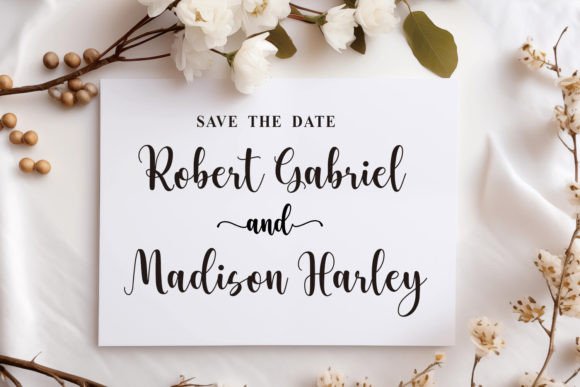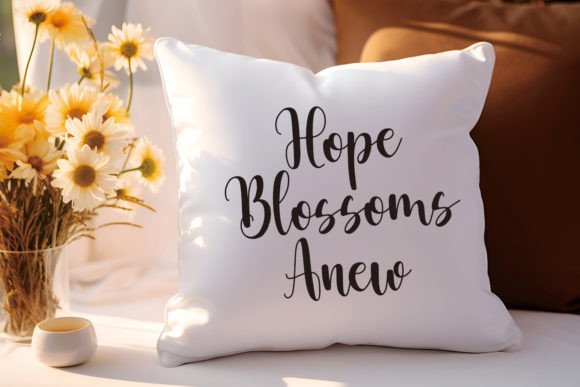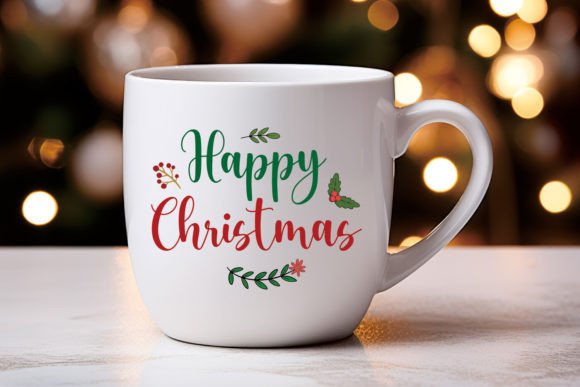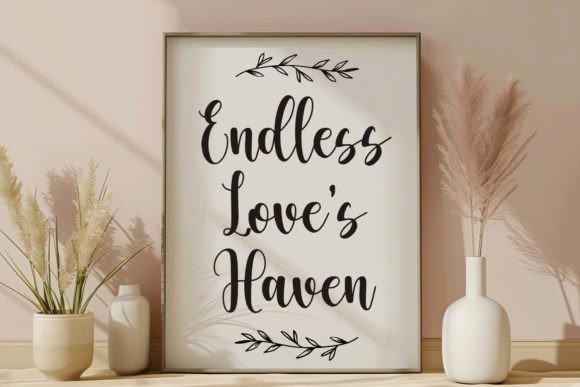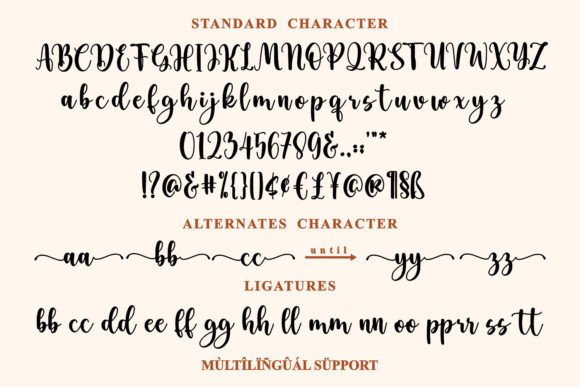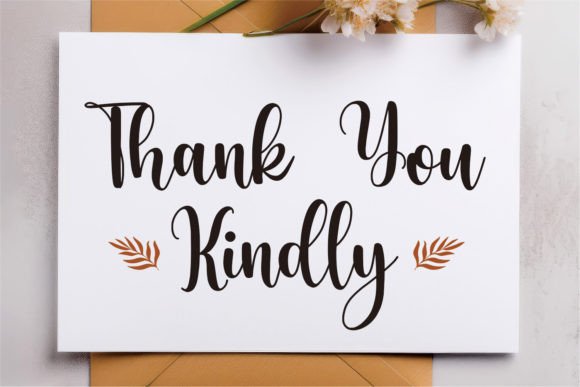
Introducing Buffalo Wings Font: The Perfect Script for Creative Endeavors
Are you a designer, crafty DIY enthusiast, or a small business owner looking for a unique and charming font to elevate your creative projects? Look no further! We’re excited to introduce the “Buffalo Wings” font, a delightful script handwritten font designed to add a touch of sophistication and warmth to your designs. In this article, we’ll dive into the features and benefits of this beautiful font, and explore how it can be used to create stunning visual content for various occasions.
What is Buffalo Wings Font?
Buffalo Wings font is a carefully crafted script handwritten font, designed to bring a playful and charming touch to your designs. Its precise strokes and curves make it an ideal choice for a wide range of creative projects, from wedding invitations and birthday celebrations to festive occasions like Christmas, New Year, Easter, and Thanksgiving.
Key Features of Buffalo Wings Font
- Playful Strokes: Buffalo Wings font features playful strokes that add a carefree and whimsical touch to your designs.
- Charming Curves: The font’s charming curves bring a sense of elegance and sophistication to your projects.
- Script Handwritten Style: The font’s script handwritten style makes it perfect for creating personalized and unique designs.
- Versatile: Buffalo Wings font is suitable for a wide range of projects, from digital designs to print materials.
Perfect for Various Occasions
Buffalo Wings font is designed to be versatile and adaptable to different occasions and themes. Here are some ideas on how you can use this font:
- Wedding Invitations: Add a touch of romance and elegance to your wedding invitations with Buffalo Wings font.
- Birthday Celebrations: Create personalized and festive birthday designs with this charming font.
- Festive Occasions: Use Buffalo Wings font to create stunning designs for Christmas, New Year, Easter, and Thanksgiving.
- Digital Designs: Use the font to create engaging social media graphics, blog posts, and website content.
| Font Name | Buffalo Wings Font |
| Author | Mozatype |
In conclusion, Buffalo Wings font is a delightful script handwritten font that’s perfect for designers, crafters, and small business owners looking to add a touch of sophistication and warmth to their creative projects. With its playful strokes, charming curves, and versatile style, this font is suitable for a wide range of occasions and themes. Whether you’re creating wedding invitations, birthday designs, or festive content, Buffalo Wings font is sure to elevate your designs and make them stand out.